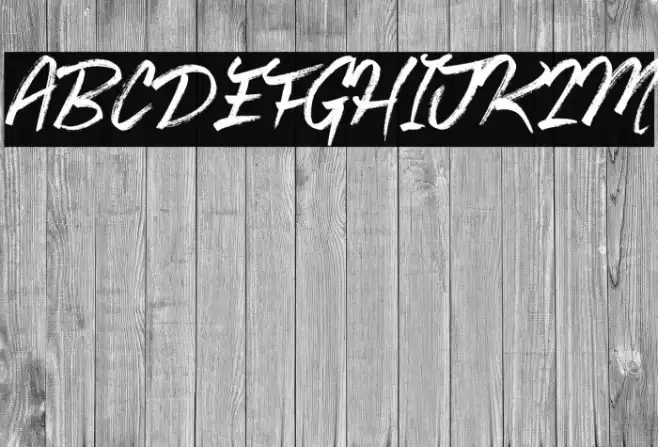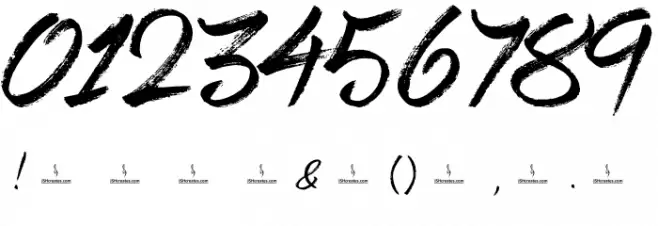
Samantha Hannah Font
Samantha Hannah Description
This font exudes a dynamic and expressive style, characterized by its bold, brush-like strokes that convey a sense of energy and movement. The letters are crafted with a natural, hand-drawn appearance, featuring irregular edges and varying thicknesses that add to its artistic flair. The uppercase and lowercase letters maintain a consistent flow, while the numerals and special characters integrate seamlessly, enhancing the font's versatility. Its overall design is both modern and artistic, making it suitable for creative projects that require a personal touch.
A dynamic, brush-style font with bold, expressive strokes and a hand-drawn appearance from Uncategorized fonts.
- Font: Samantha Hannah
- Proposed Projects: Ideal for branding, posters, invitations, and any design requiring a personal, artistic touch.
- Overall Style: Modern, Artistic